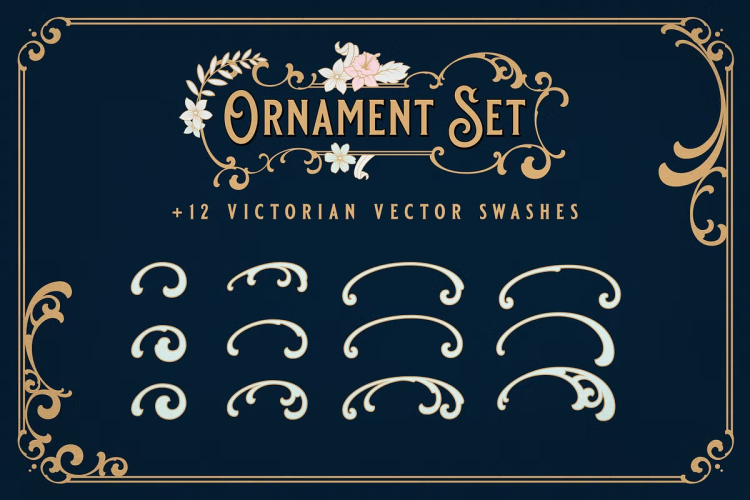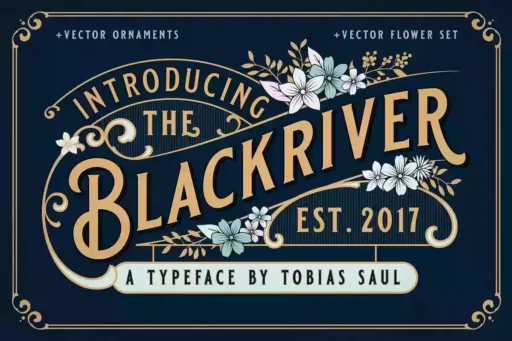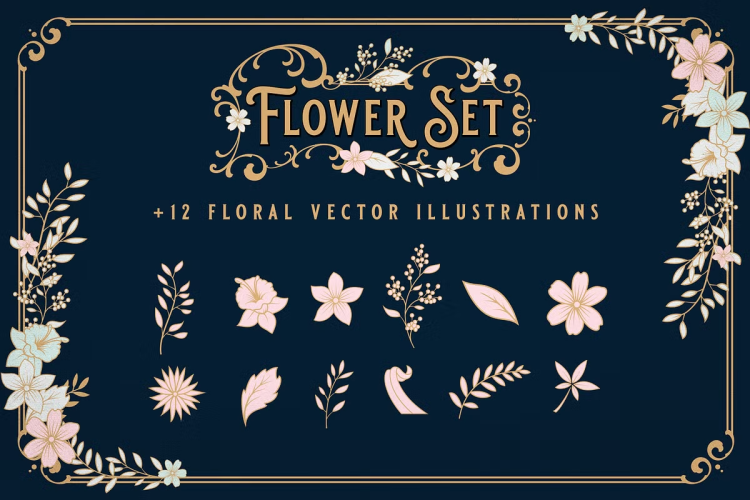
Blackriver Font
Blackriver is a decorative font style by Heritage Type Co. that has a old type of packaging and advertising from early twentieth century. This font is great for vintage…
Blackriver is a decorative font style by Heritage Type Co. that has a old type of packaging and advertising from early twentieth century. This font is great for vintage logo design, titles, and for labeling, it will add a retro feel to any project. In addition to the font, you will also receive a pack of floral vector elements as well as elements of decor to complement your design, helping to create a vintage design in just a few minutes.
Blackriver font also comes with a set of floral vector illustrations and some decorative ornaments.
Where Blackriver Font works best
Blackriver Font is built for size: event posters, hero headlines and billboard-style layouts.
High contrast display type like Blackriver Font reads instantly in thumbnails and motion graphics.
What is Blackriver Font good for?
Blackriver Font is a Display Fonts typeface tagged Branding, Decorative, Display, Display Fonts. It works well for headlines, logos, posters, social media graphics and branding projects that need a distinctive display fonts look.